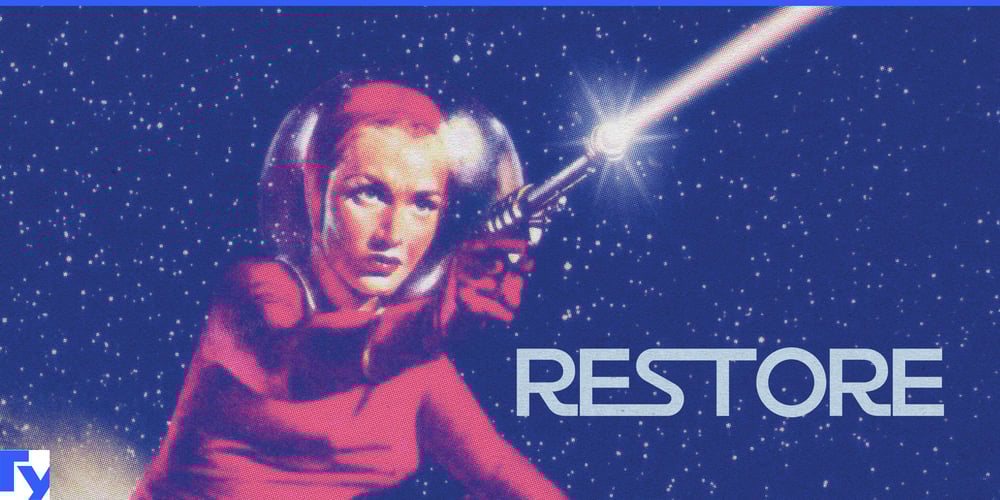
Restore Font Family was designed by Ray Larabie and published by Typodermic. Restore contains 7 styles and family package options. Step into the world of Restore, a headline typeface that masterfully bridges early 20th-century German sign lettering with contemporary design sensibilities. At first glance, its geometric structure suggests simplicity, but a closer look reveals a nuanced typeface where every curve and angle has been meticulously crafted for visual harmony and impact.What truly sets Restore apart is its ingenious use of interlocking letterforms. The tight spacing and deliberate overlap of characters—particularly evident in combinations like “RS” and “ST”—create a captivating visual rhythm. This interplay of forms adds depth and dimension to your designs, transforming simple text into dynamic, eye-catching compositions. Restore’s versatility shines across a spectrum of applications. From commanding headlines and memorable logos to cohesive branding systems, this typeface commands attention without overwhelming the viewer. Its seven carefully calibrated weights provide designers with a robust toolkit, allowing for precise control over the visual weight and tone of your message.This typeface doesn’t just speak—it resonates across cultures. Restore’s extensive character set supports a wide array of Latin-based European writing systems, ensuring your message maintains its impact whether you’re designing for a local audience or an international campaign. From the fjords of Norway to the streets of Buenos Aires, Restore communicates with clarity and style. Restore is more than just a nod to the past; it’s a bold step into the future of typography. Its unique blend of industrial edge and refined aesthetics makes it an ideal choice for brands and projects that aim to stand out in a crowded visual landscape. Whether you’re crafting a sleek tech startup identity or revitalizing a heritage brand, Restore provides the typographic foundation to make your vision a reality.Choose Restore when you need typography that doesn’t just catch the eye—it holds it. Its seamless fusion of historical inspiration and contemporary design principles creates a typeface that’s both familiar and refreshingly new. Let Restore be the cornerstone of your next design project, and watch as it transforms your ideas into unforgettable visual statements.